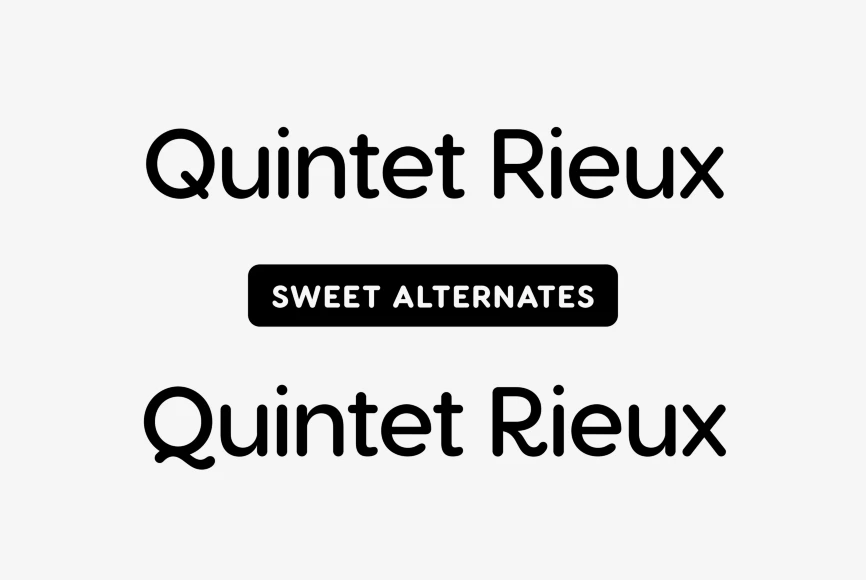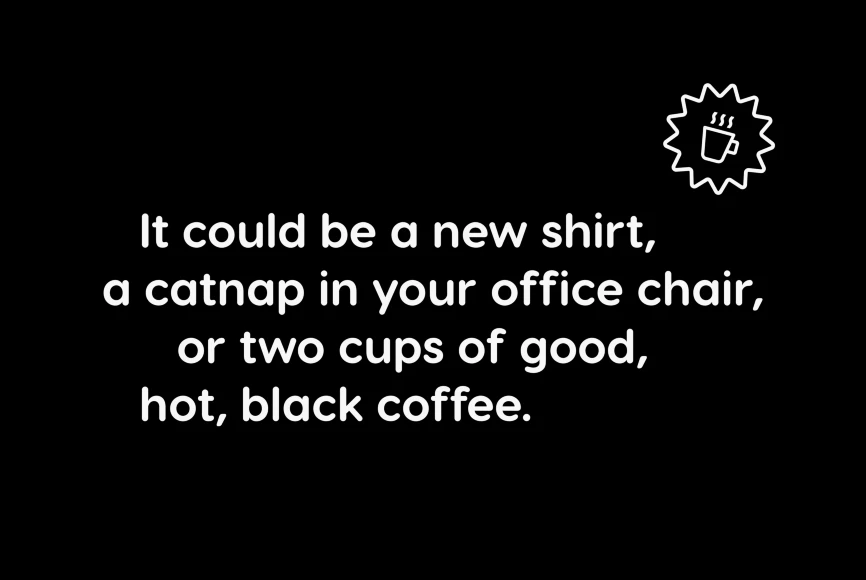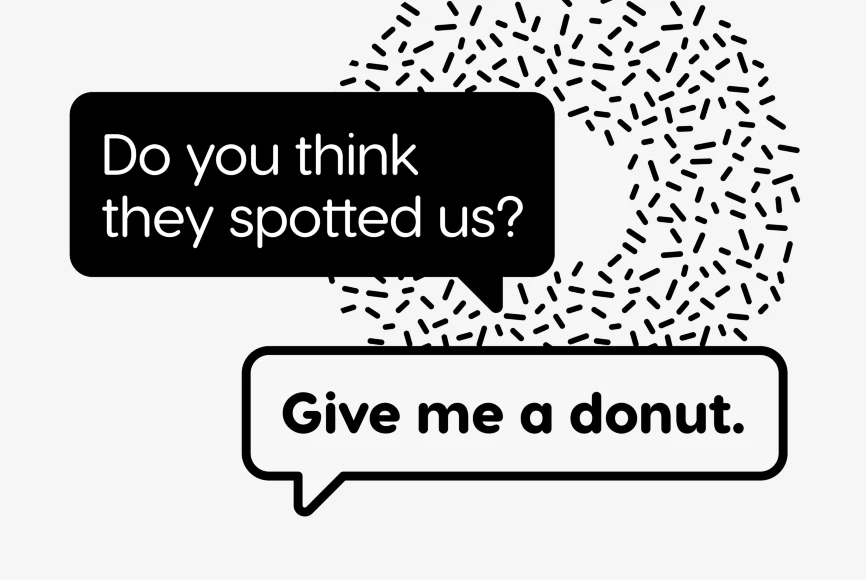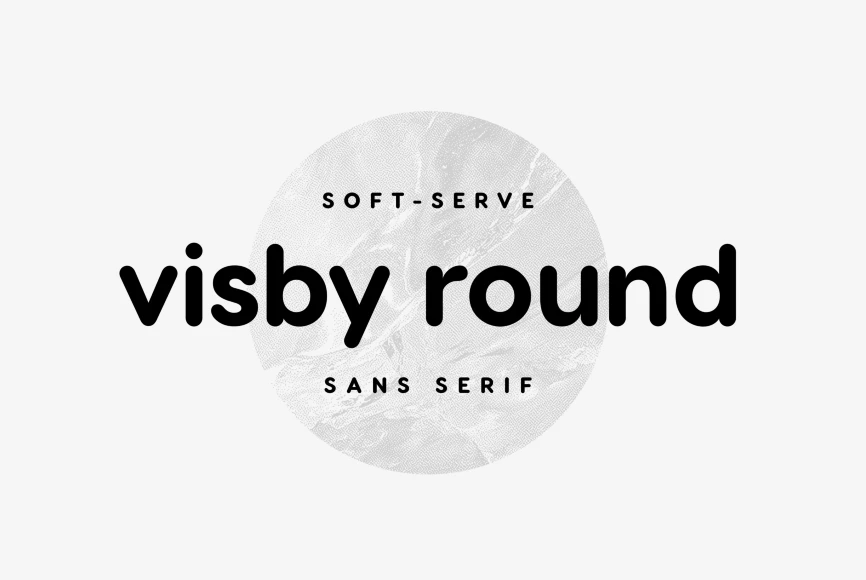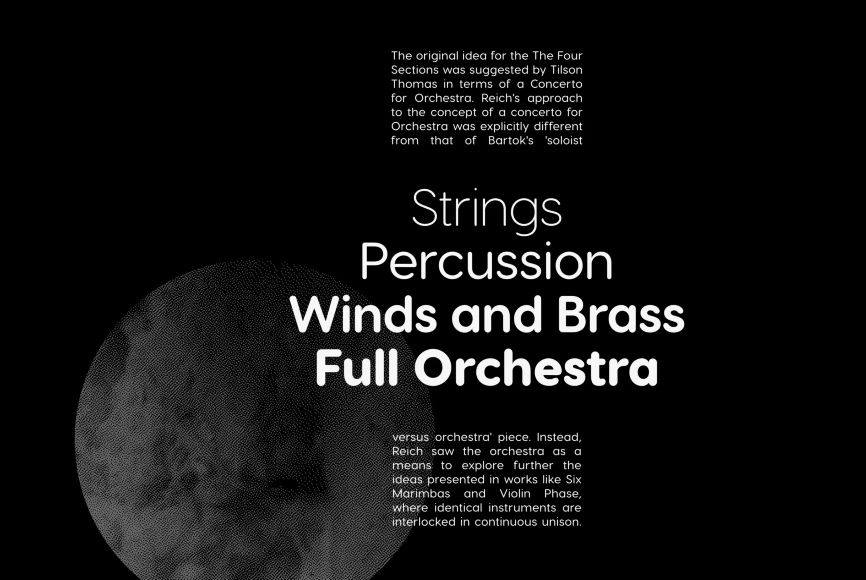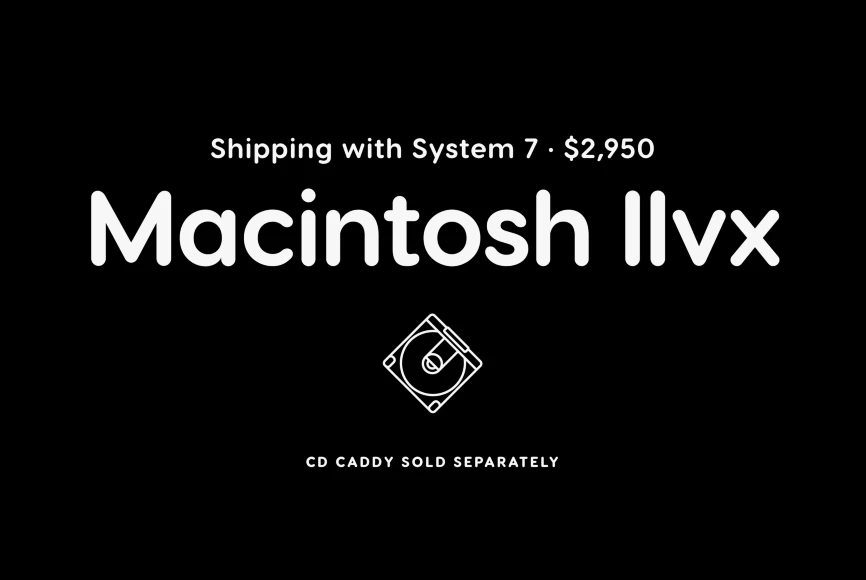
Visby Round
Friendly and charismatic in lowercase; sophisticated and authoritative in uppercase. Visby Round takes the charismatic forms of its older sibling and softens them, creating a friendly, fresh new look. Perfect anywhere you need a little smooth goodness. Rounded forms, with subtle humanist influences add warmth.